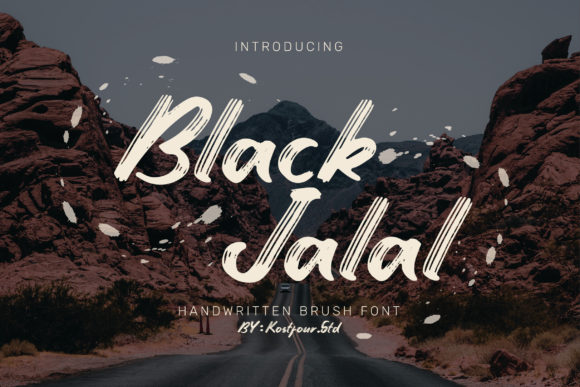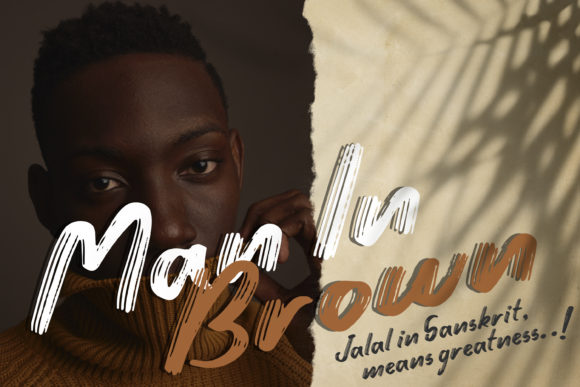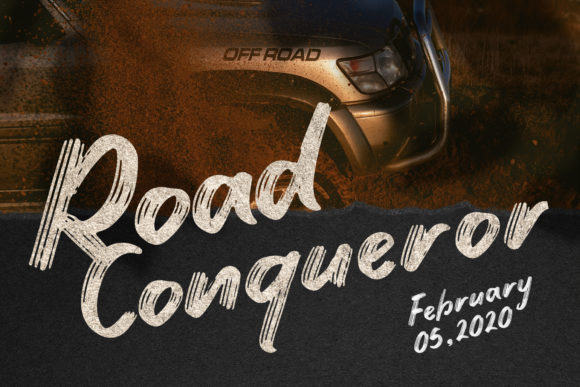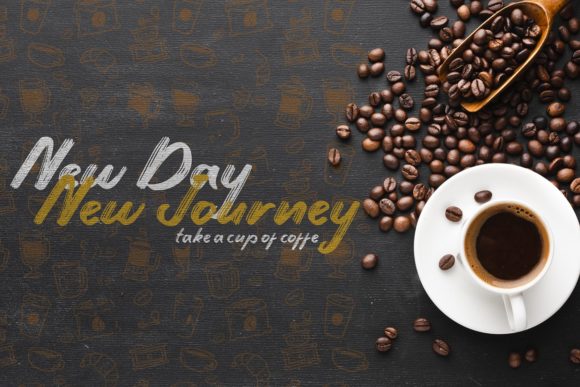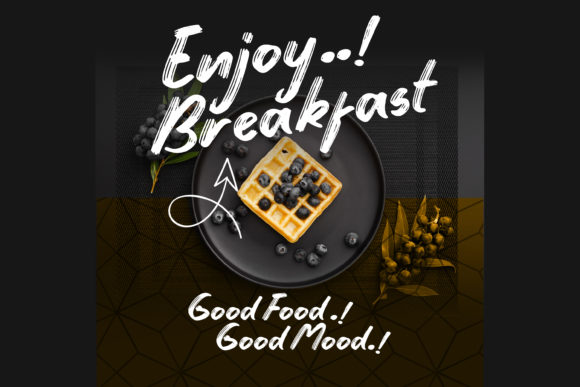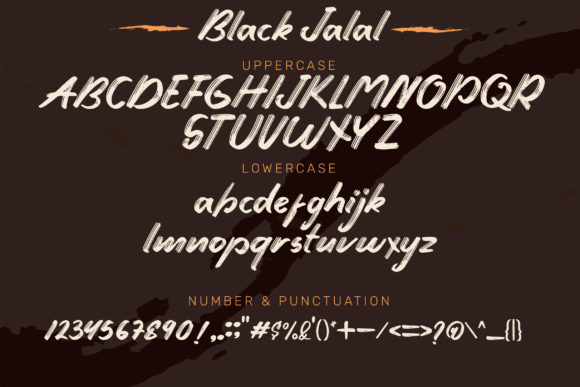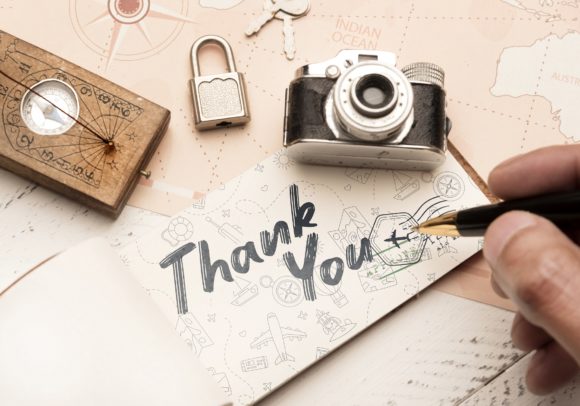
Black Jalal
About Black Jalal Font
Black Jalal is a cursive brushed handwritten font. Expertly designed to make your creation look out of this world, this font has the potential to take your creative ideas far further.